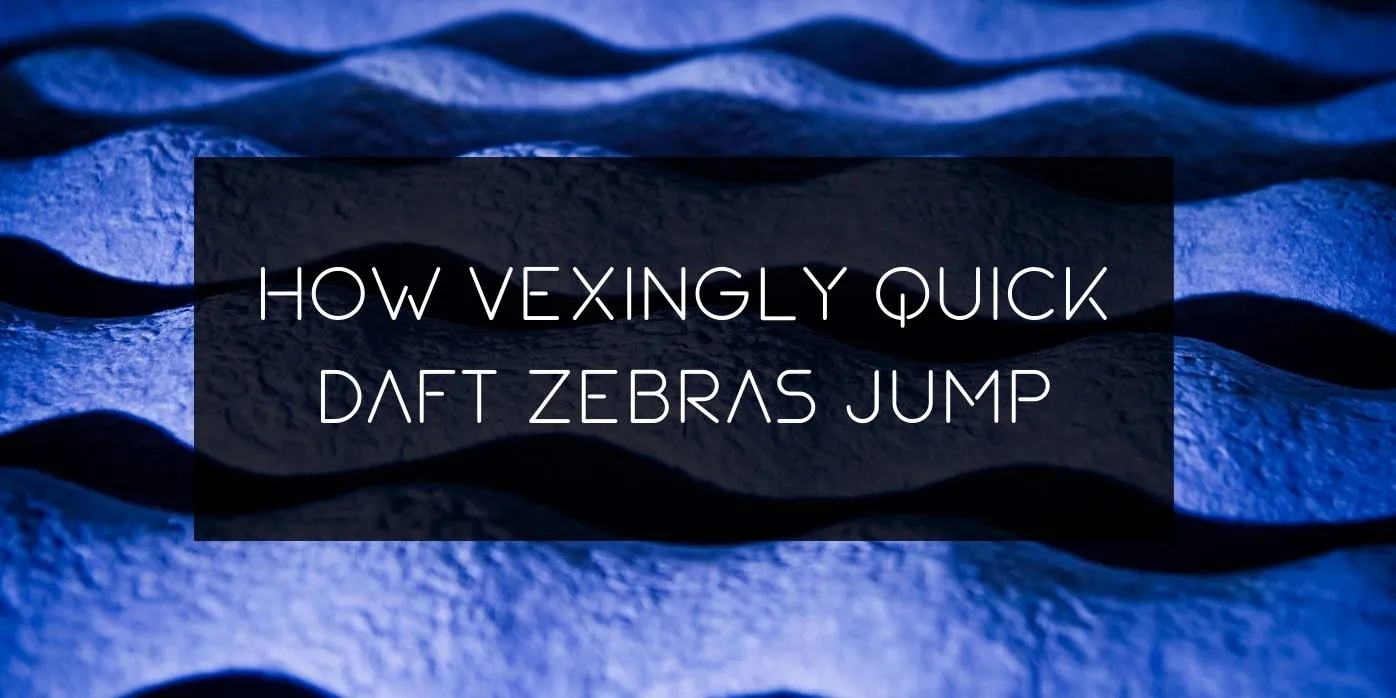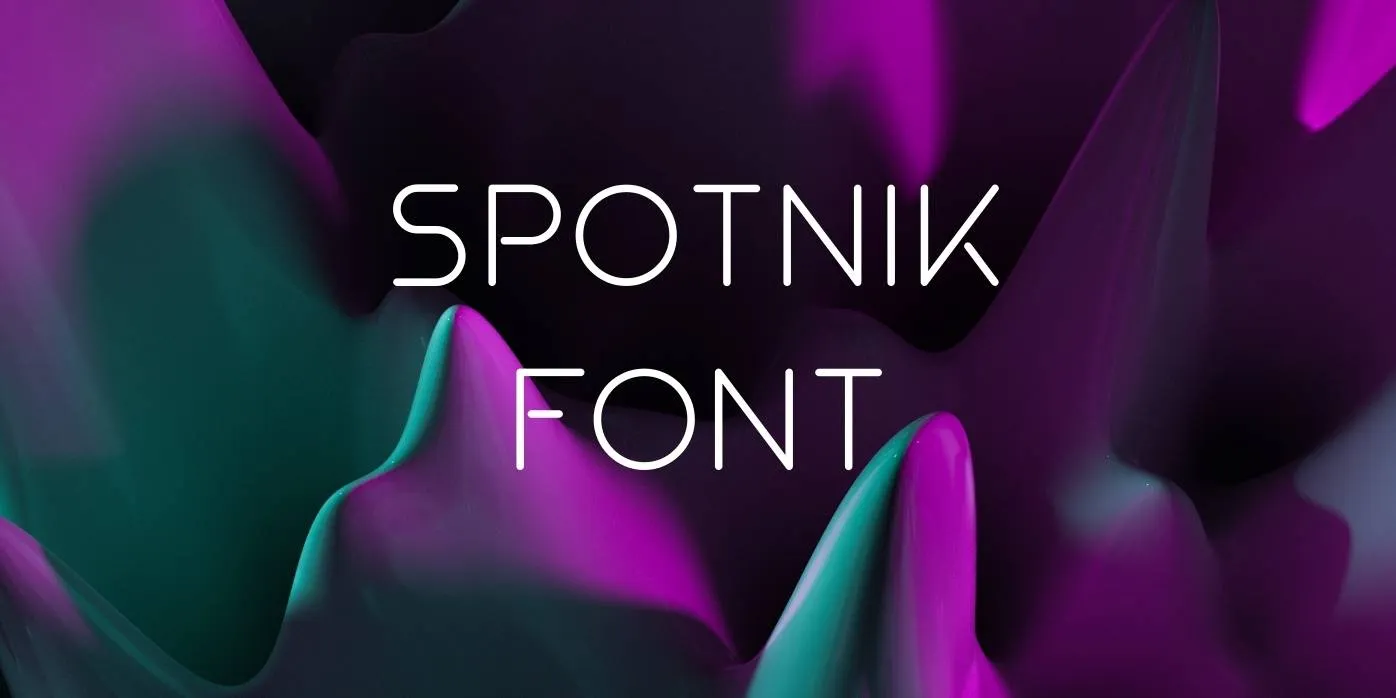
Spotnik Font
Here, we are consulting about a tremendous typeface that is famous with the name Spotnik Font. It belongs to the sans serif font family. This awesome typeface was created by Sahirul Iman. This typeface has bold and classic features.
This sans serif typeface has available in a single regular style with True type features. It comprises sharp edges and corners that give a modern look to your designs. You can create outstanding designs by using this Spotnik Typeface. You need to download this family and for graphics, and designs use its generator tool.